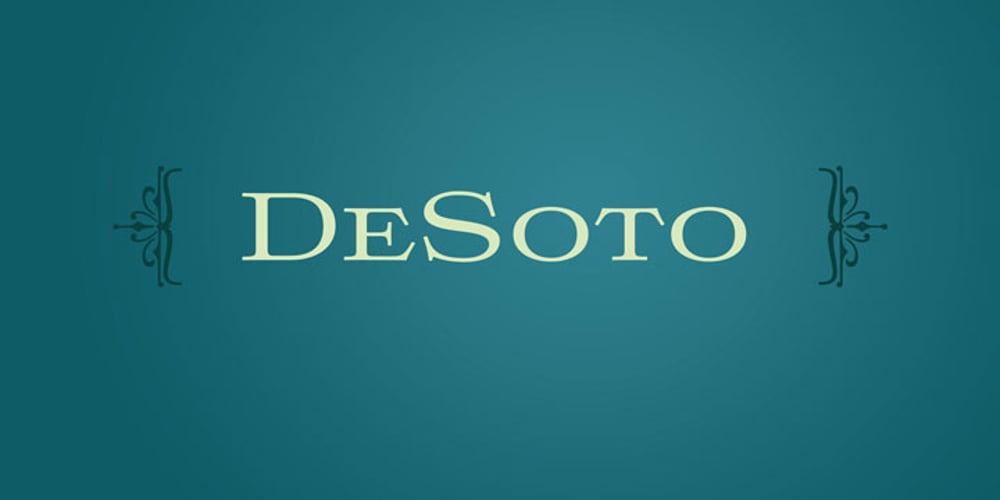
DeSoto Font Family was designed by Stephen W. Rapp and published by Stephen Rapp. DeSoto contains 4 styles and family package options. Warm and inviting— DeSoto is a titling face sure to add a touch of grace to many projects. Its name and inspiration come from a few letters in a 1958 DeSoto magazine advertisement. Many automobile ads back then used wide faces to create a feeling of luxury and elegance. DeSoto gives you that same feeling, but in a more contemporary fashion. DeSoto’s extended width characters show a hint of old school aesthetics. It comes in four styles all featuring a balance of caps and smallcaps. As a titling face, DeSoto will work in all kinds of setting; well… maybe not death metal flyers, but who knows? Taking advantage of OpenType programming, DeSoto features include alternate characters, fractions, oldstyle figures, ligatures, case-sensitive punctuation, ornaments and swashes, and Central European language support. All features, including ornaments, are included with each weight, taking full advantage of the OpenType format.